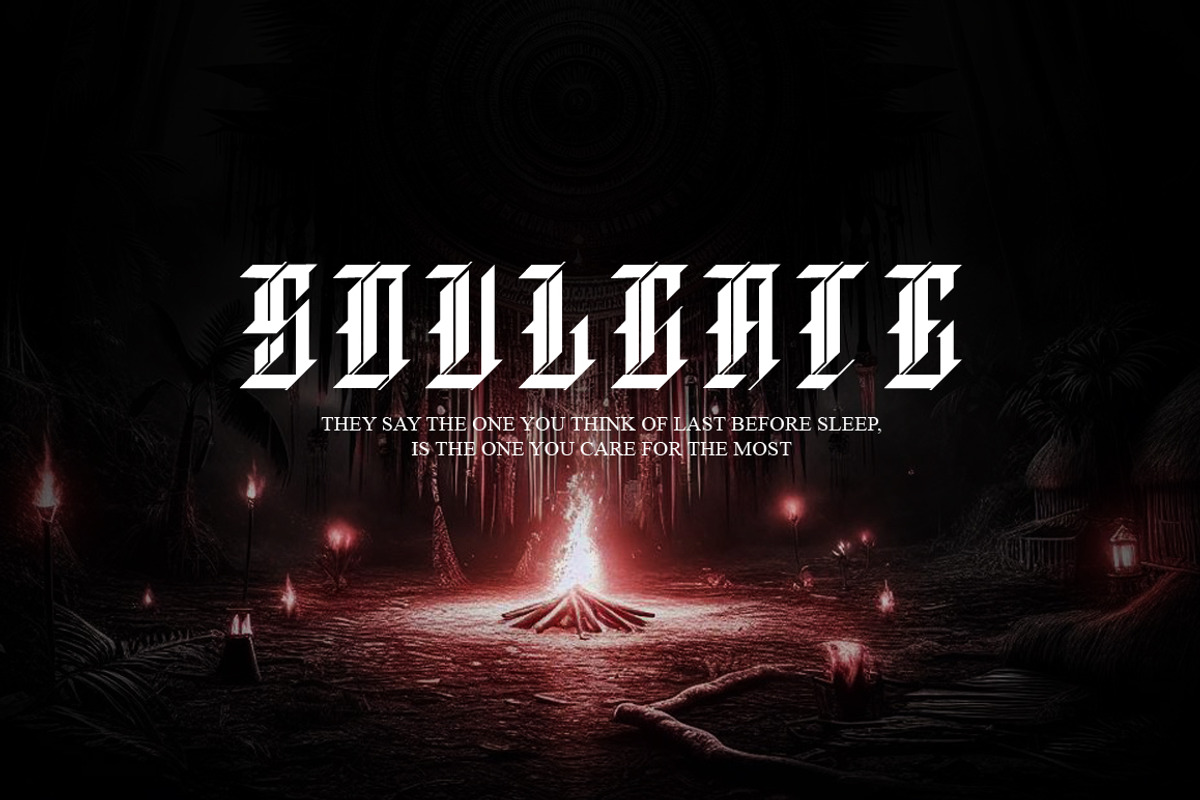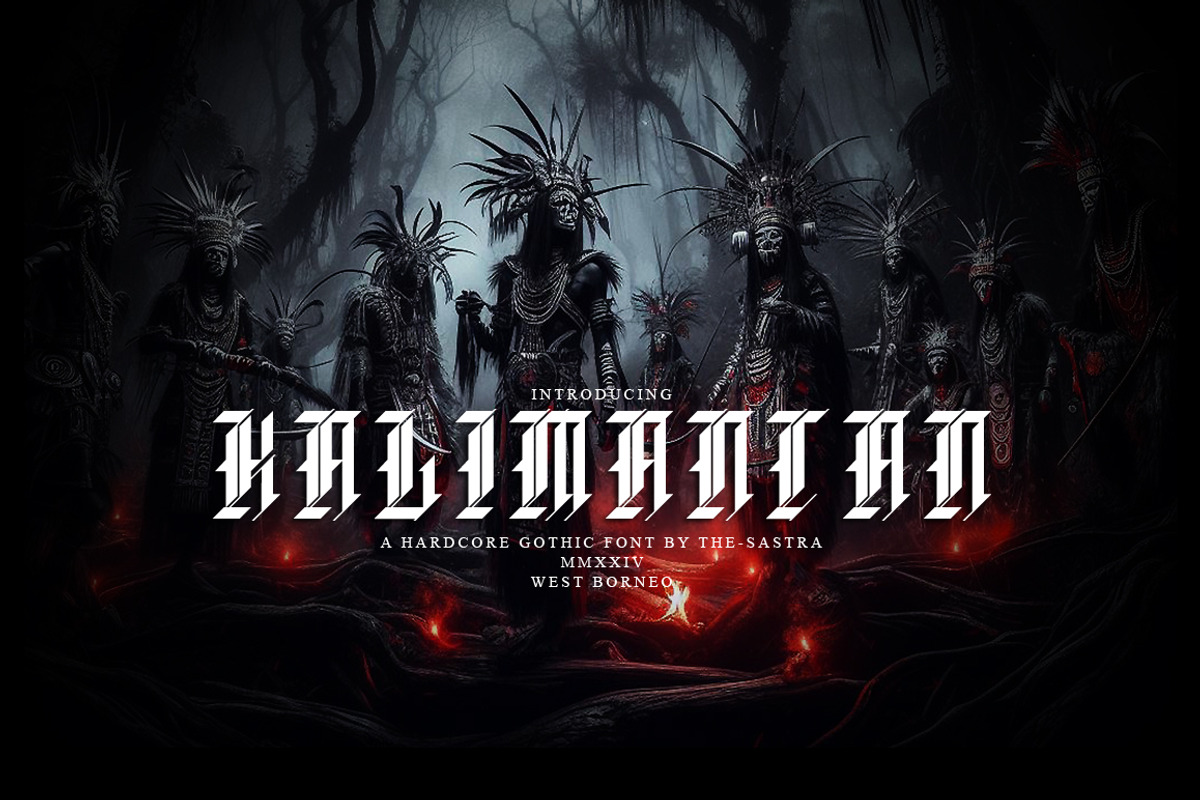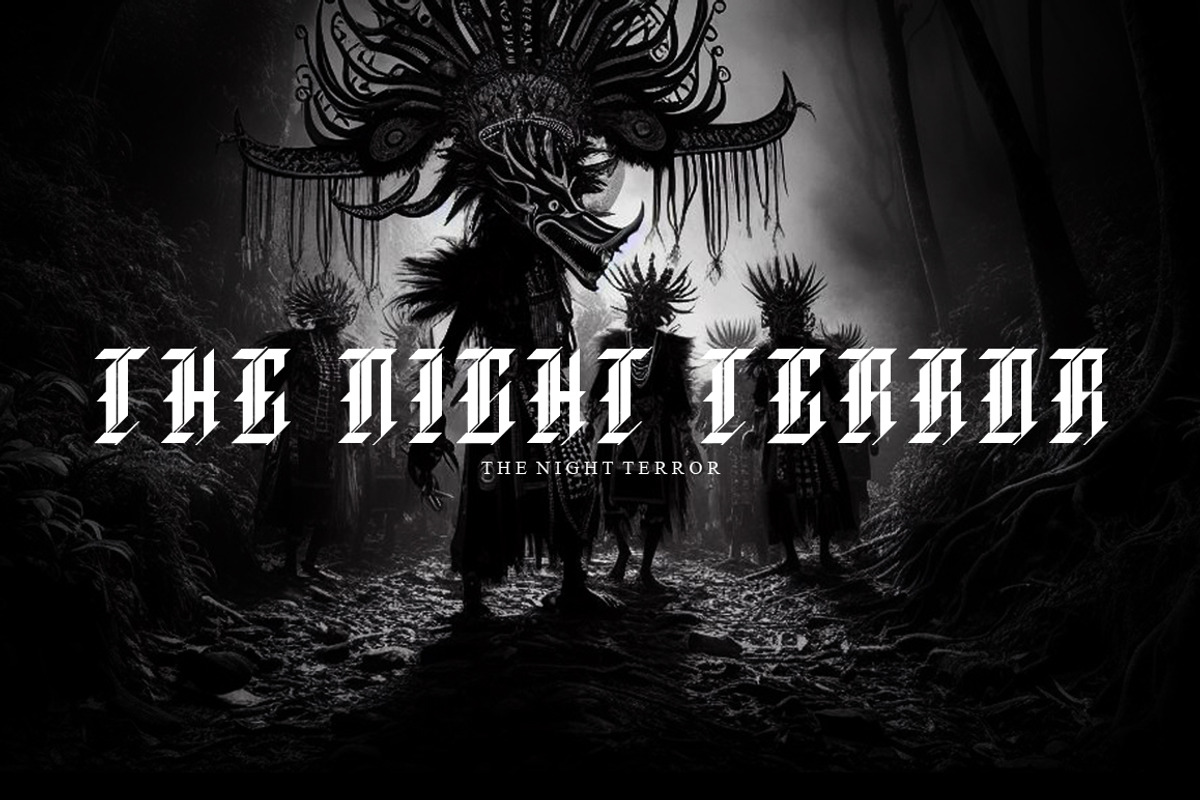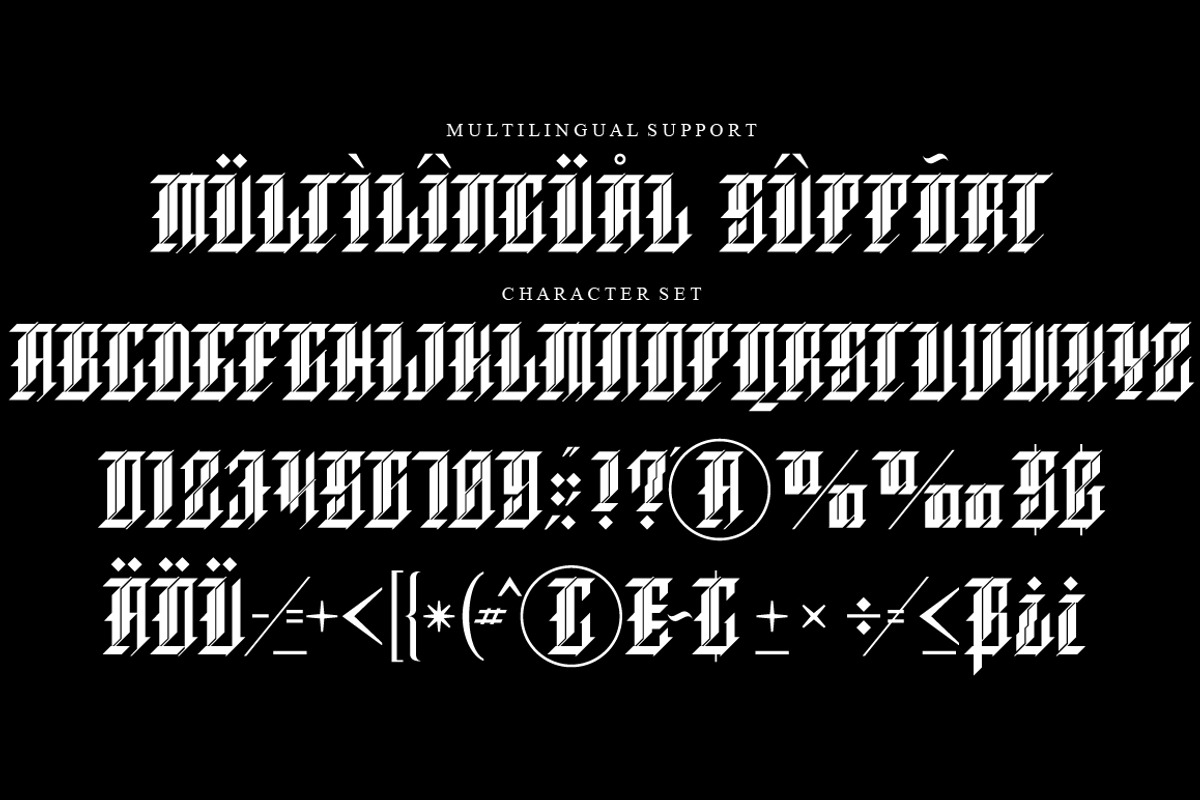
Kalimantan Display Typeface
This Kalimantan font is inspired by Tribe, Borneo culture and tattoo. Kalimantan font is perfect for badges, branding, labels, apparel, headlines, signage, logo, quote, apparel and other creative applications.